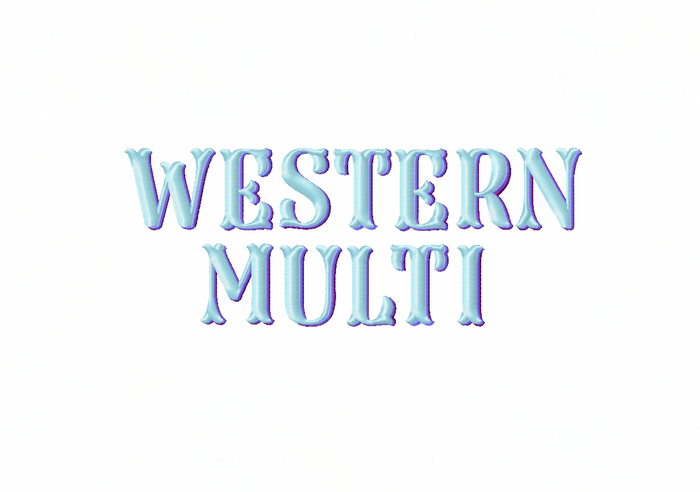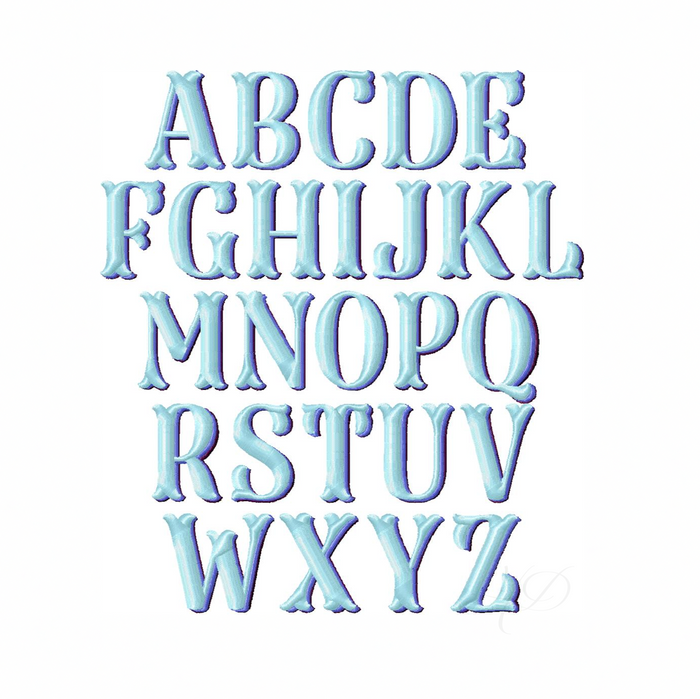
Multi Western Satin Stitch Shadow Embroidery Font
Transform your crafting projects with the Multi Western Satin Stitch Shadow Embroidery Font. This versatile three-color font is ideal for crafters using multi-needle machines, ensuring vibrant and intricate designs. Available in sizes of 1", 1.5", and 2", the maximum size retains a seamless satin stitch combination, making it perfect for adding a distinctive touch to your embroidery.